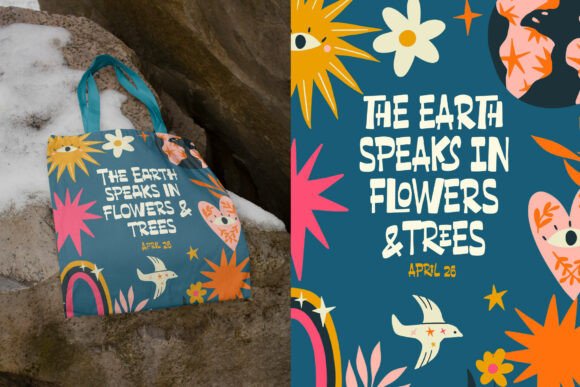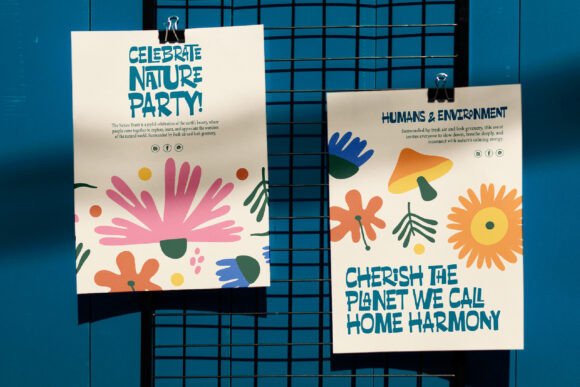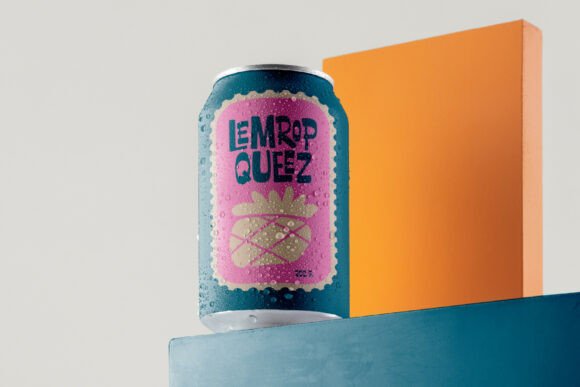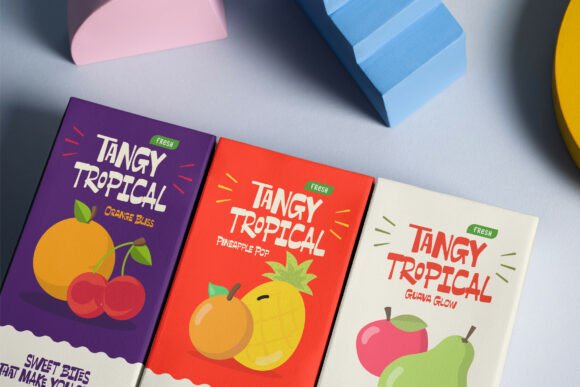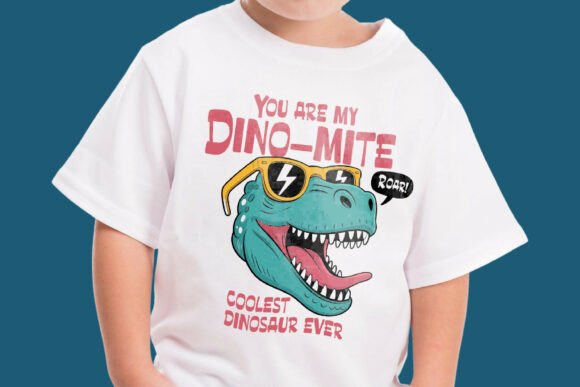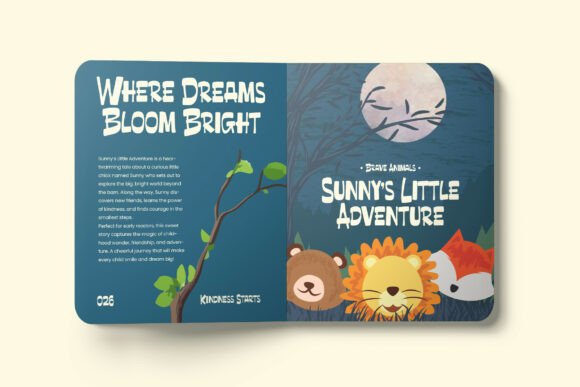
Introduction to Katales Broken Font
Step into a realm of whimsical creativity with Katales Broken.
This strikingly bold and quirky display font brims with merry eccentricity and a delightful flair of offbeat charm Each character stands unique, emerging from an artistic milieu of hand-drawn originality, launching your designs into a stratosphere of spontaneity and cheer.
Key Features of Katales Broken Font